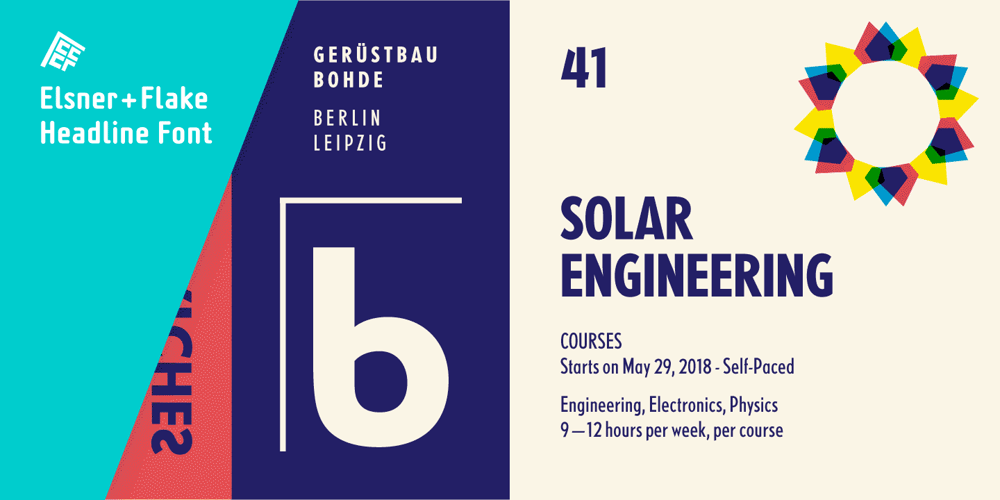
Kristall H MfD Pro Font Family was designed by Johannes Wagner and published by Elsner+Flake. Kristall H MfD Pro contains 8 styles and family package options. The design of Kristall Grotesk is based on a cut by Wagner & Schmidt, Leipzig, from the 30s of the last century. The basis for the digital version of the Stiftung Werkstattmuseum für Druckkunst , Leipzig was the standard font (28p) of the manual cuts as offered by the font foundry Johannes Wagner, Ingolstadt. The implementation was deliberately created as a replica to create a faithful reproduction as a starting point for the design of other design sizes. The present Kristall Grotesk is therefore a headline design. The appearance of the typeface can be varied by a number of alternative forms of capitals, which, according to the taste of the time, contain either pointed or flat formations. Designer: Hausschnitt Johannes Wagner, Leipzig, Redesign Elsner+Flake, Hamburg Designdate: 1937, 2009 Publisher: Elsner+Flake Design Owner: Stiftung Werkstattmuseum für Druckkunst , Leipzig Original Foundry: Wagner & Schmidt, Leipzig